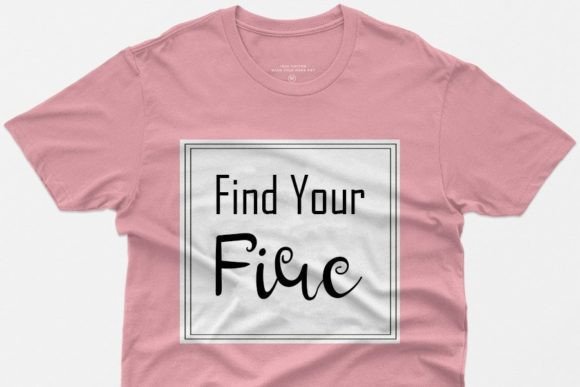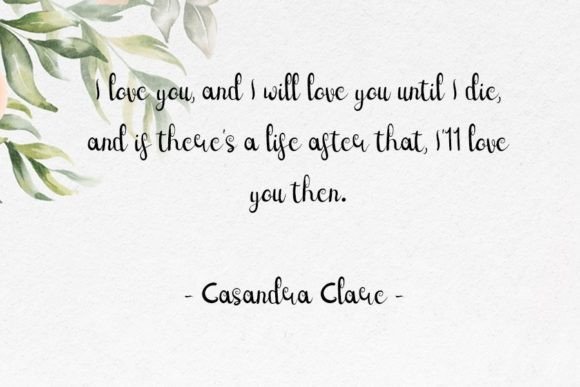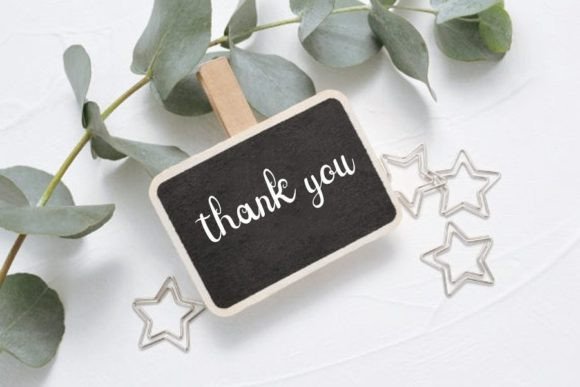
Introducing Automotive: The Fun and Friendly Handwritten Font
Are you tired of using the same old fonts in your designs? Look no further than Automotive, a fun and friendly handwritten font that’s sure to make your creations stand out. With its unique charm and versatility, Automotive is the perfect choice for designers and crafters looking to add a personal touch to their work.
The Story Behind Automotive
Automotive is a carefully crafted handwritten font that’s designed to evoke a sense of fun and friendliness. Its creators wanted to create a font that would be perfect for a wide range of design projects, from bold and playful titles to more subtle and elegant text. Whether you’re working on a logo, a poster, or a digital project, Automotive is the perfect choice.
What Makes Automotive So Special?
So, what sets Automotive apart from other fonts? Here are just a few of its standout features:
- Unique Character: Automotive has a one-of-a-kind personality that’s both playful and approachable. Its handwritten feel makes it perfect for designs that need a personal touch.
- Versatility: Automotive is incredibly versatile, making it suitable for a wide range of design projects. Use it for titles, headings, and body text to create a cohesive look.
- Easy to Read: Despite its playful feel, Automotive is incredibly easy to read, even at small sizes. This makes it perfect for digital projects, such as websites and social media graphics.
How to Use Automotive in Your Designs
Automotive is incredibly easy to use, even for designers who are new to working with handwritten fonts. Here are a few tips to get you started:
- Pair it with Other Fonts: Automotive looks great when paired with other fonts, especially bold and modern sans-serifs. Experiment with different combinations to find the perfect look for your design.
- Use it for Headings and Titles: Automotive is perfect for headings and titles, where its playful feel can really shine. Use it to add a pop of personality to your design.
- Add Some Color: Automotive looks great in a wide range of colors, from bold and bright to subtle and pastel. Experiment with different colors to find the perfect look for your design.
Inspiration for Your Next Design Project
Still not sure how to use Automotive in your designs? Here are a few ideas to get you started:
- Create a Bold Logo: Use Automotive to create a bold and eye-catching logo that’s sure to turn heads.
- Design a Playful Poster: Automotive is perfect for posters, where its playful feel can really shine. Use it to create a fun and eye-catching design that’s sure to grab attention.
- Add a Personal Touch to Your Website: Use Automotive to add a personal touch to your website, whether it’s in your headings, titles, or body text.
Automotive is a fun and friendly handwritten font that’s perfect for designers and crafters looking to add a personal touch to their work. With its unique charm and versatility, it’s the perfect choice for a wide range of design projects. So why not give it a try and see what amazing designs you can create?